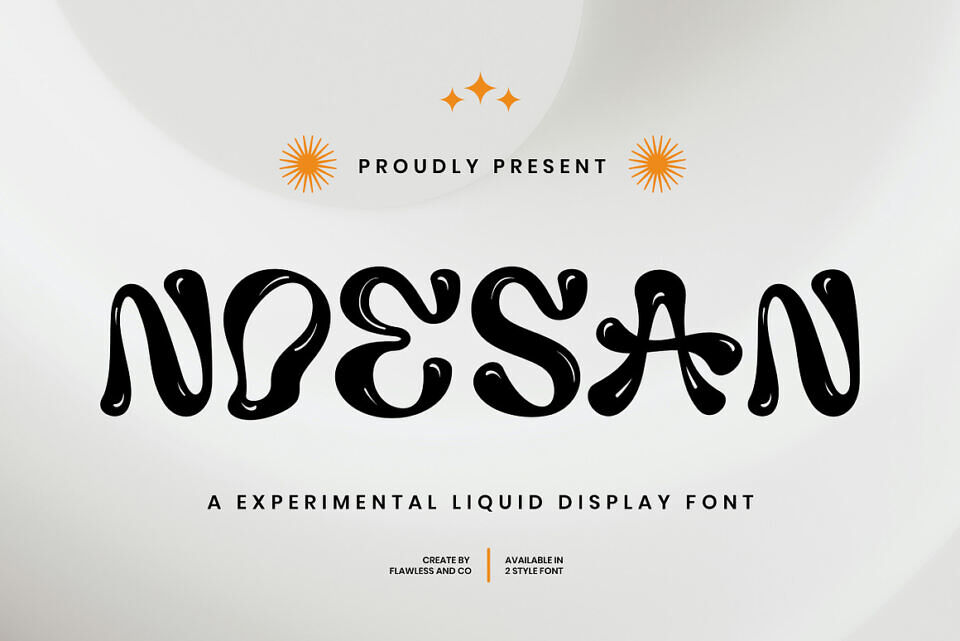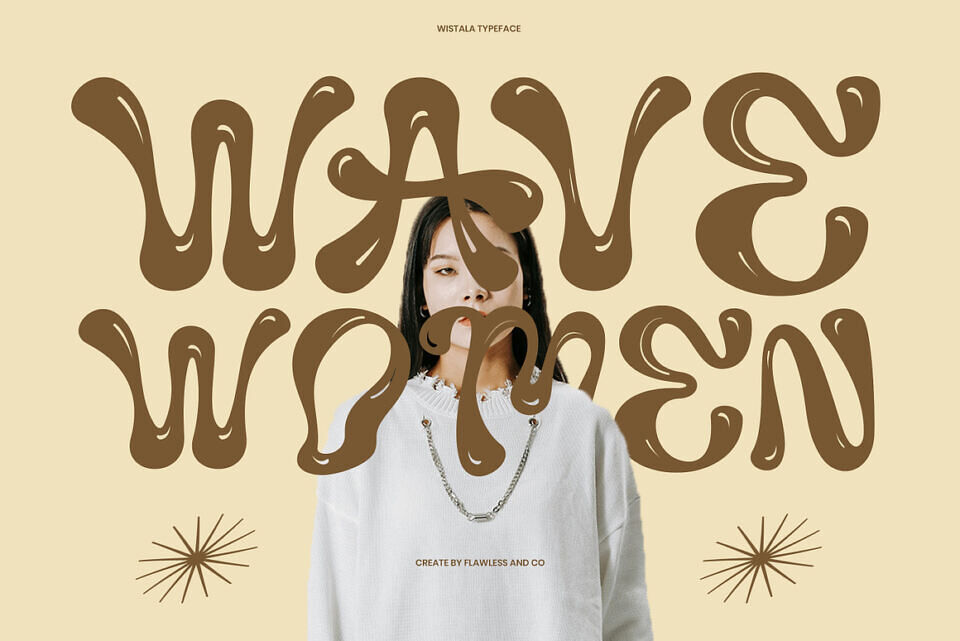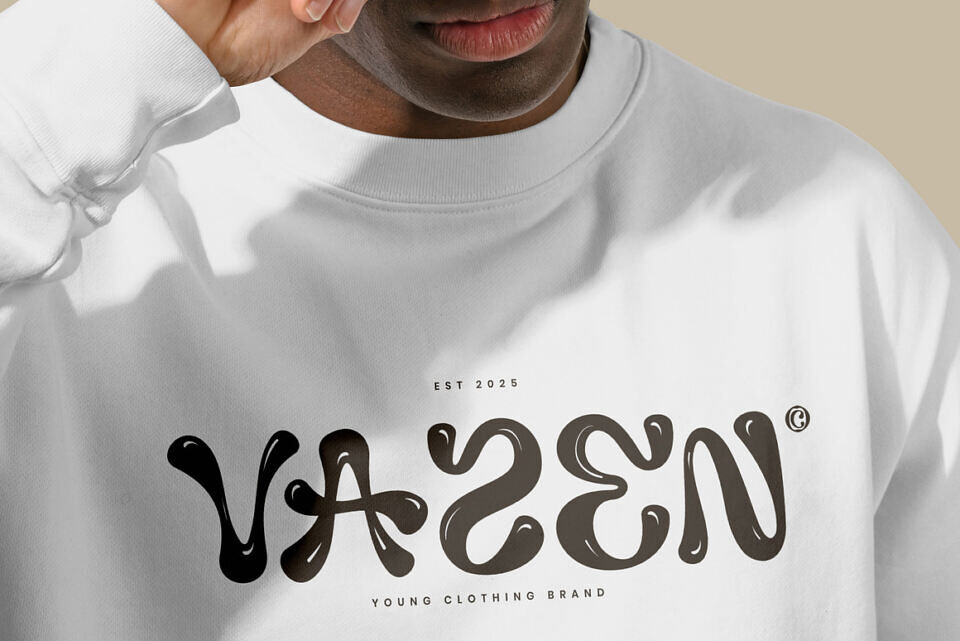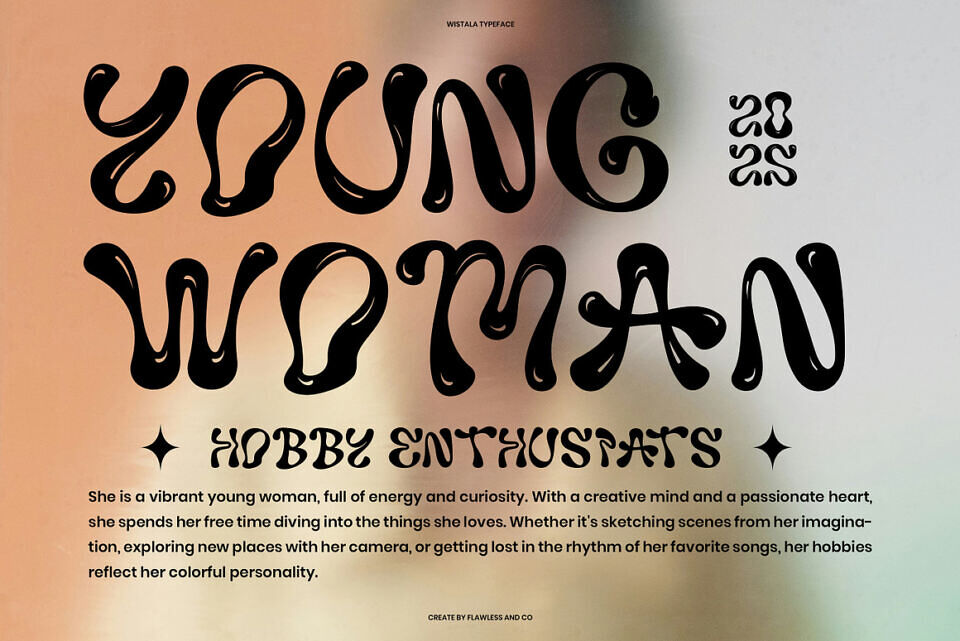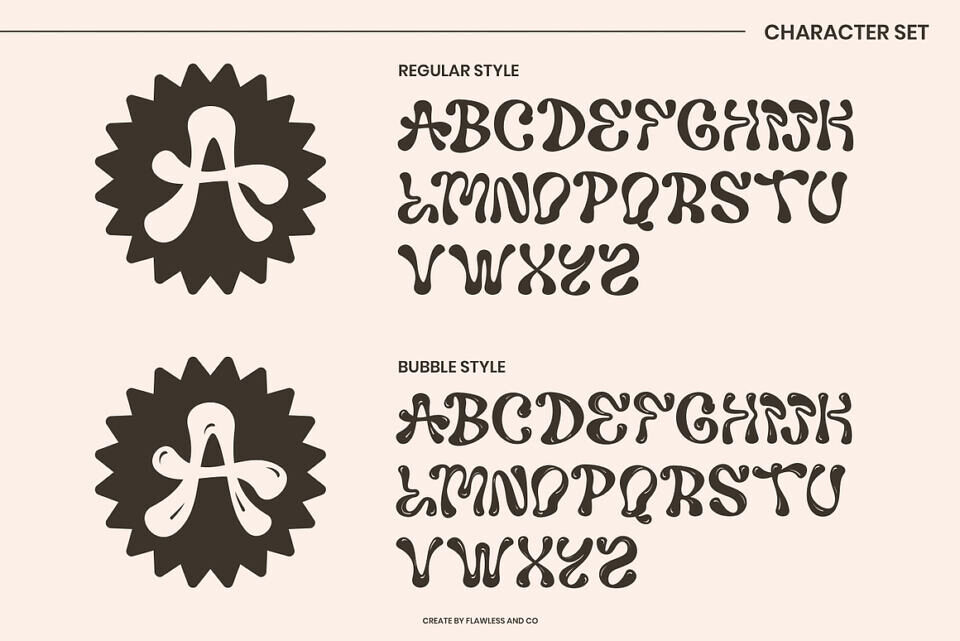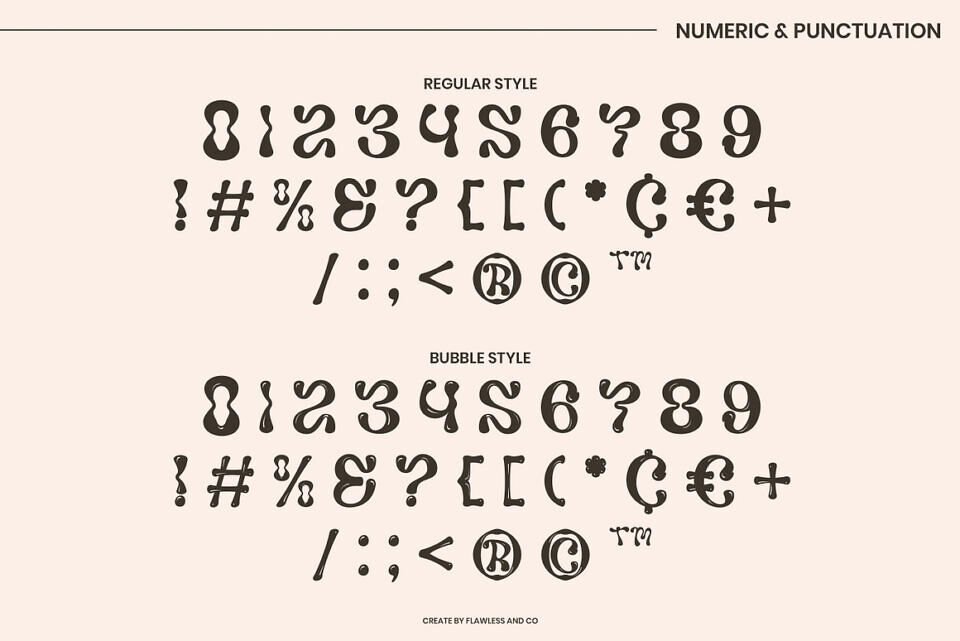
Noesan Font
Noesan is a one-of-a-kind experimental display font inspired by the unpredictable fluidity of liquid shapes. It blends bold strokes with dripping details, giving your typography an eccentric, playful, and artistic vibe.
With two distinct styles, NOESAN offers creative freedom for a wide range of design needs. Whether you’re creating a music poster, fashion visual, DJ promo, or edgy branding, this font brings a unique energy that stands out in any crowd. NOESAN was crafted for fearless designers who want to push boundaries and make a loud visual statement.